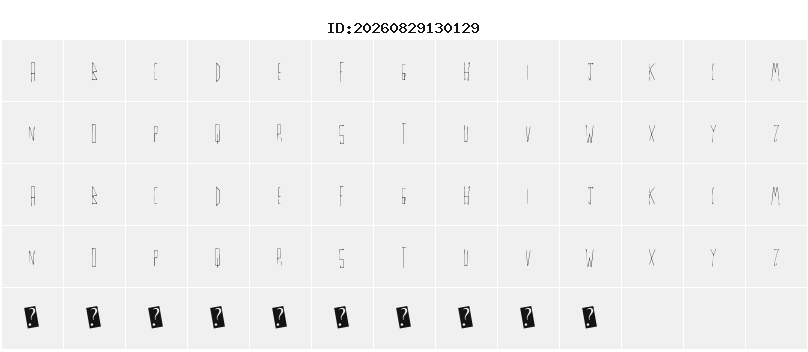
ThinFine Preview
• Font Name: ThinFine
• Designer: Max Infeld
• Manufacturer: Xerographer Fonts
• Description: made in chico,ca at thin
About ThinFine.ttf
ThinFine.ttf is a modern, elegant sans-serif font designed for ultimate readability and visual harmony. Perfect for branding, headlines, web design, and print materials.